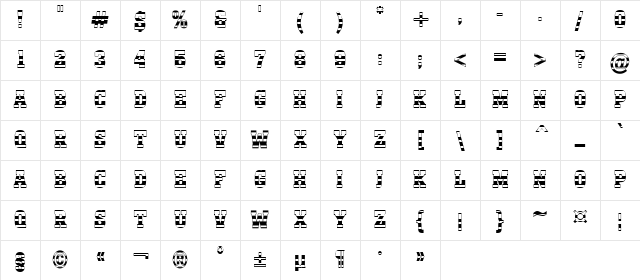
Complete a_MonumentoTitulStrNr Regular glyph index. Displaying only characters natively supported by a_MonumentoTitulStrNr Regular font.
a_MonumentoTitulStrNr is a composed and adaptable typeface that performs quietly and consistently across a wide range of design contexts.